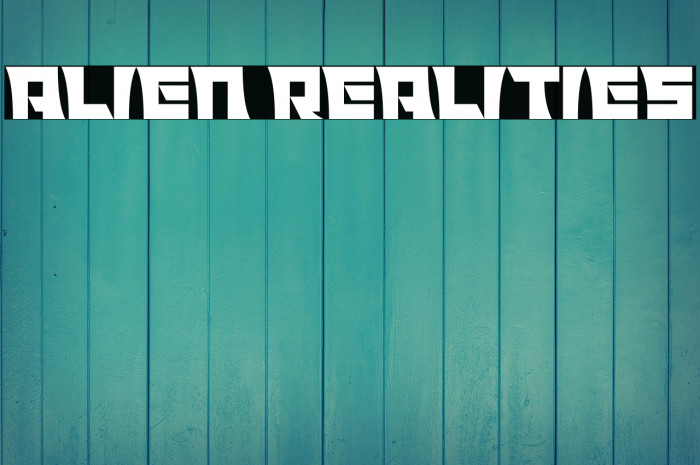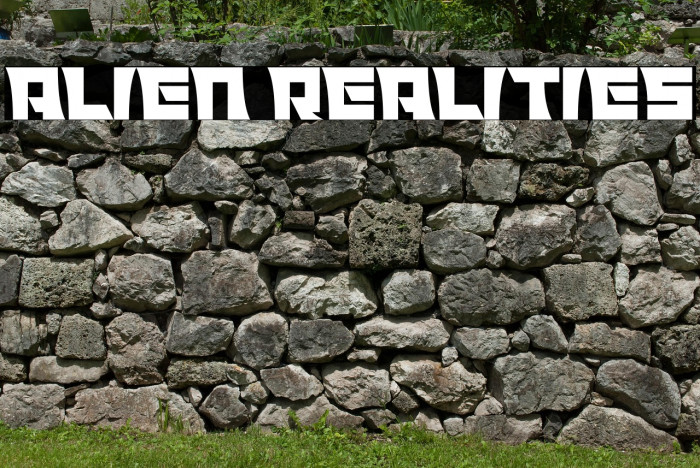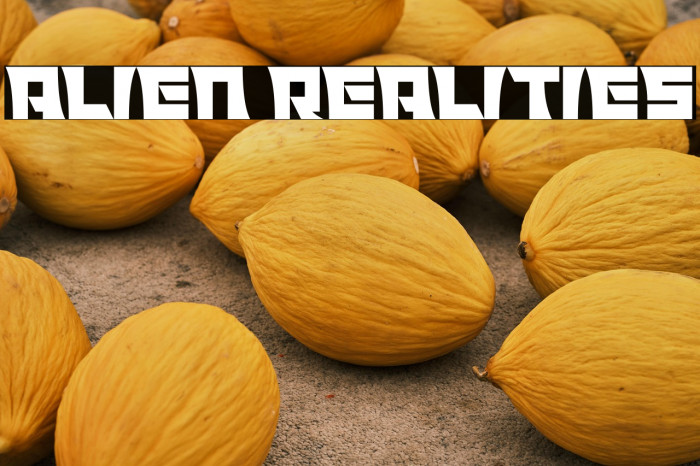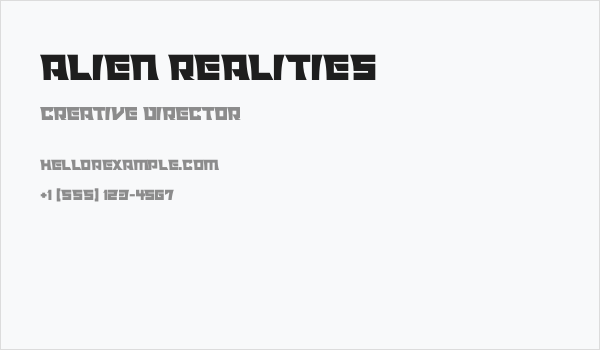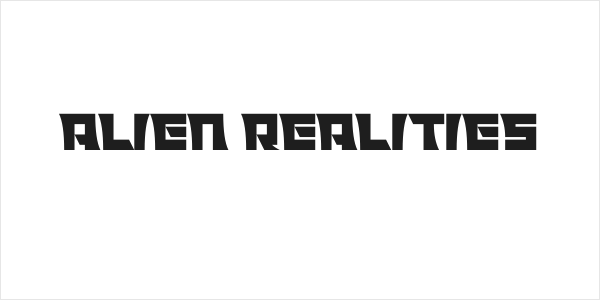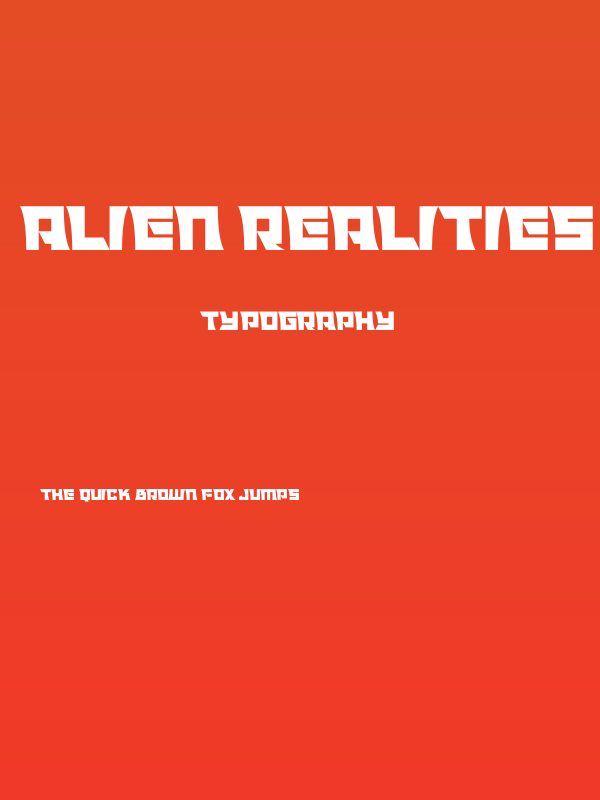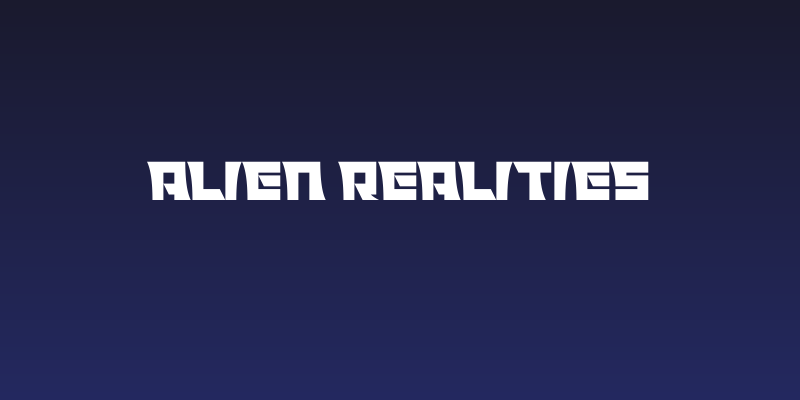
Alien Realities Font
Alien Realities Description
This font features a bold, futuristic design with sharp angles and geometric shapes, creating a striking and modern appearance. The uppercase letters are uniform in height, with a consistent width that gives a sense of stability and strength. The numerals and special characters maintain the same angular style, ensuring a cohesive look across all elements. The font's unique style is reminiscent of science fiction themes, making it ideal for projects that require a bold and unconventional aesthetic. Its distinct appearance is both eye-catching and memorable, suitable for creative and dynamic design applications.
| Overall Style | Futuristic |
| Proposed Projects | Perfect for sci-fi movie posters, video game titles, futuristic branding, and tech-related designs. |